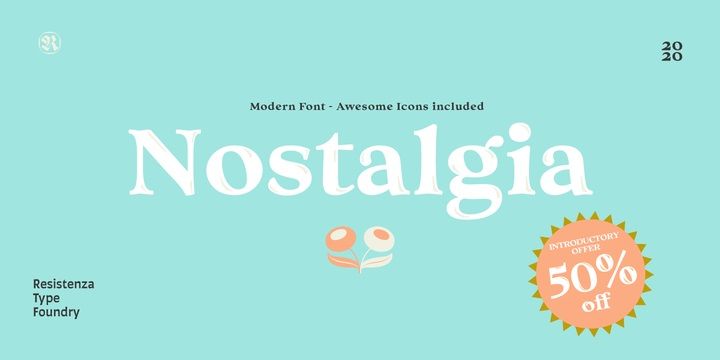
Type foundry Resistenza founded by the designer duo consisting of Italian Giuseppe Salerno and Spanish Paco González has released a new font in the past days.
This playful vintage-inspired serif font was named Nostalgia; the examples illustrating its use give a faithful expression of the designers’ aims as to what graphical surfaces they intended the typeface for.
The font is only available in Regular size, but it is accompanied by sets of retro effects and flower ornaments, allowing designers to work in the style of magazines and graphics from the 1970s.